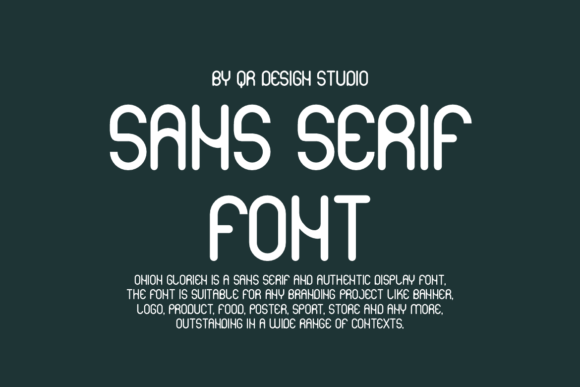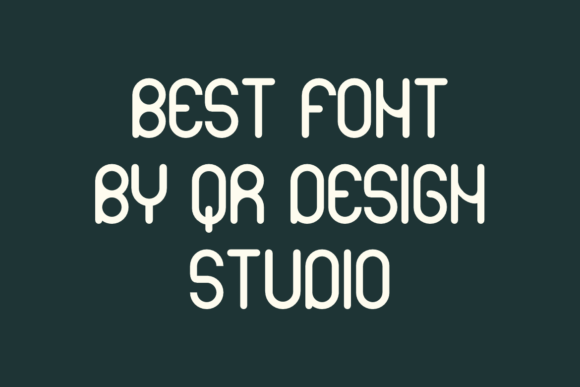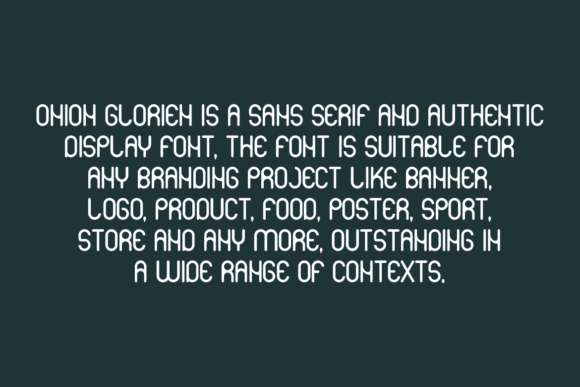
Introduction to Onion Glorien Font
Onion Glorien Font is a modern and authentic display font.
The font is suitable for any branding project like logo, sport, and many more Outstanding in a wide range of contexts.
Why Choose Onion Glorien Font?
Onion Glorien Font offers exceptional quality and versatility, making it a valuable addition to your design toolkit. Whether you’re creating for personal projects or commercial use, Onion Glorien Font delivers professional results.